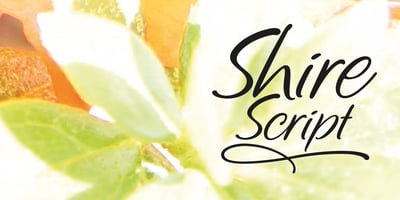
Shire Script Font Family was designed by Keith Morris and published by Bean & Morris. Shire Script contains 1 styles and family package options. Shire Script includes alternate characters and discretionary ligatures to help you create settings when informality is called for. Variety in the lowercase x heights and connectors give an overall effect of handwritten headings and text. However, by considered drawing, legibility is not compromised.